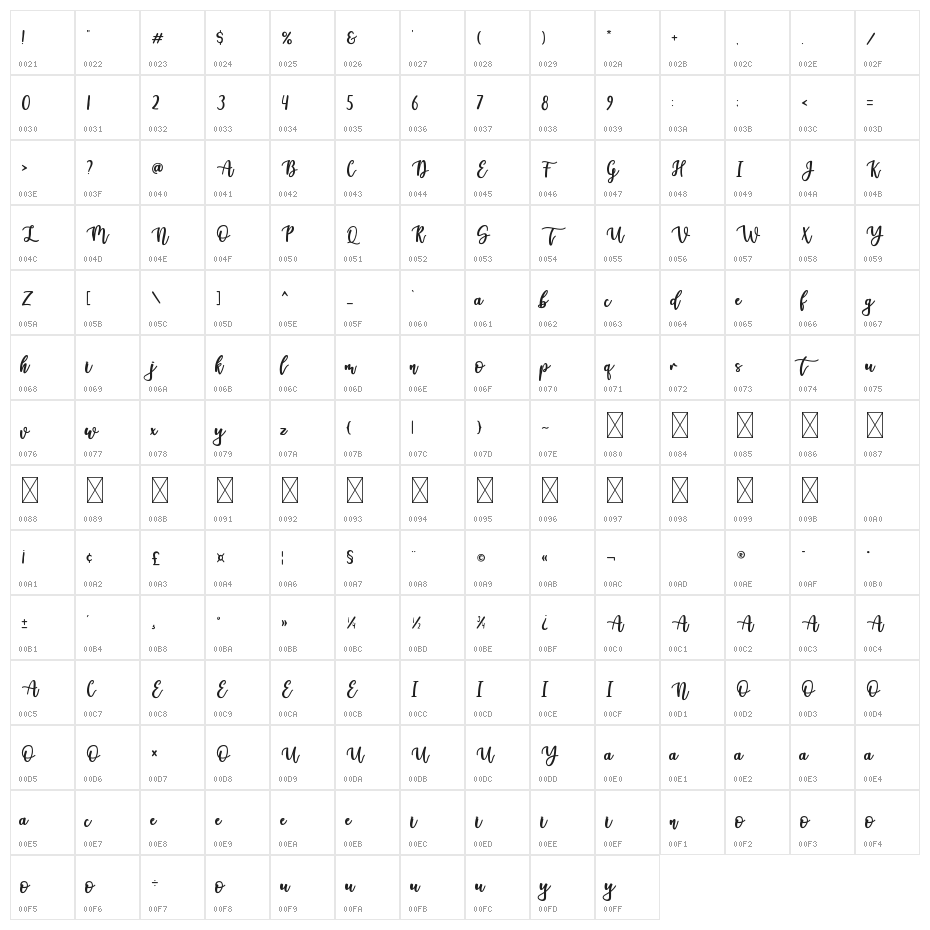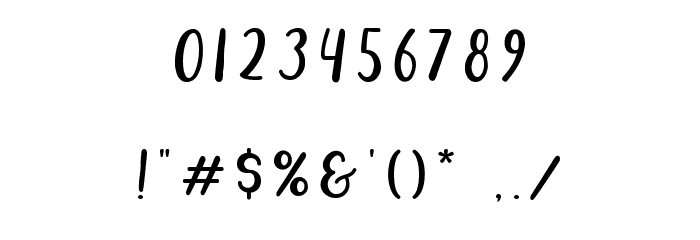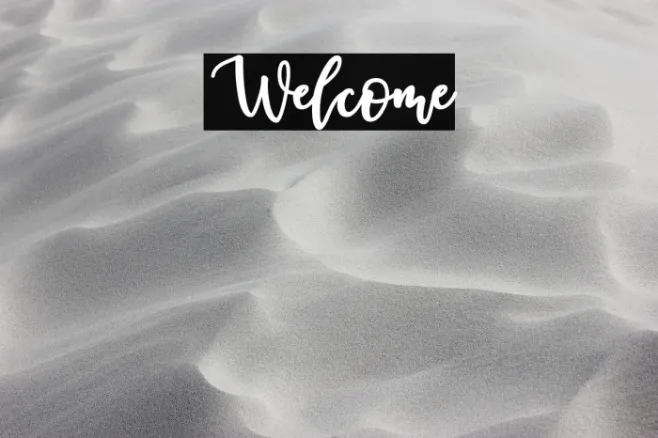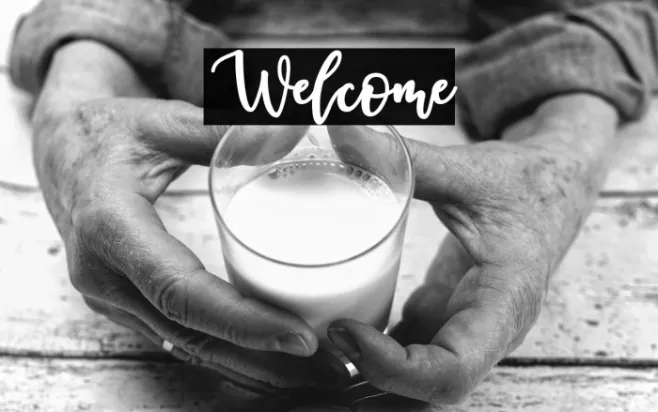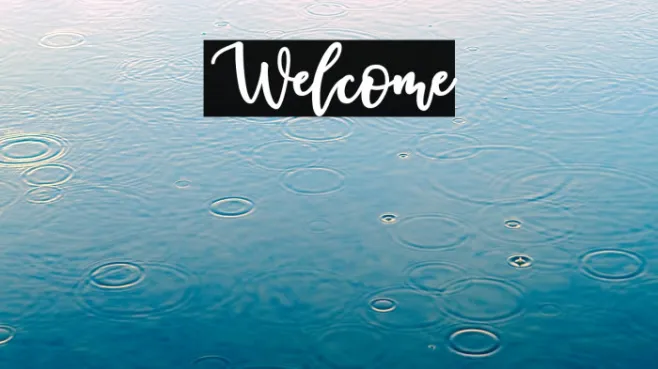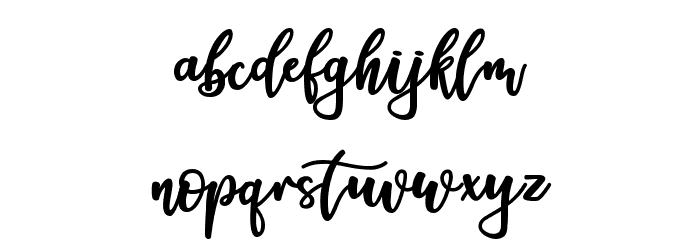
Welcome Font
Welcome Description
This font features a flowing, cursive style that exudes elegance and sophistication. The characters are interconnected, creating a seamless and fluid appearance. The uppercase letters are bold and prominent, while the lowercase letters maintain a consistent flow with gentle curves and loops. The numerals are clear and easy to read, complementing the overall script style. Special characters are designed to match the cursive theme, adding a touch of flair to any text. The font's smooth lines and balanced proportions make it suitable for a variety of creative applications.